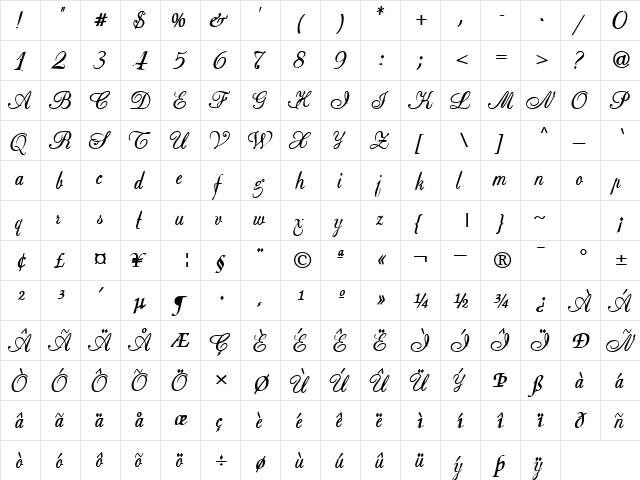
BasicClassA156a Bold Font Preview
BasicClassA156a Bold
Design Context for BasicClassA156a Typeface
BasicClassA156a is a composed and adaptable typeface that performs quietly and consistently across a wide range of design contexts. The heavy weight commands attention and anchors typographic hierarchies.